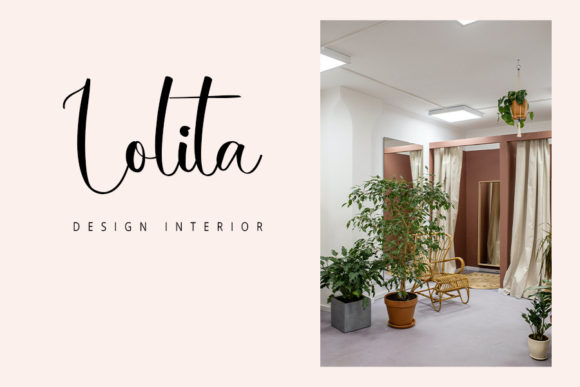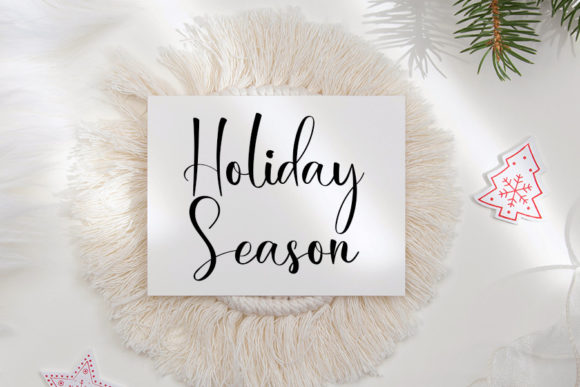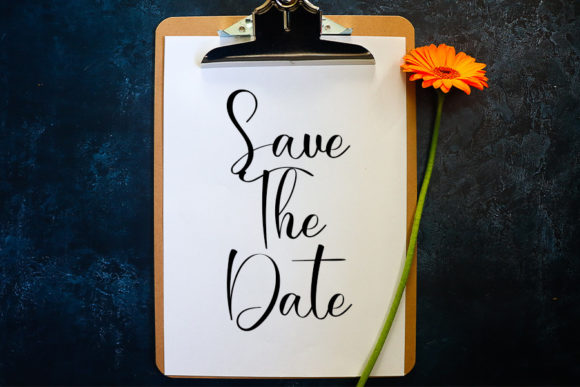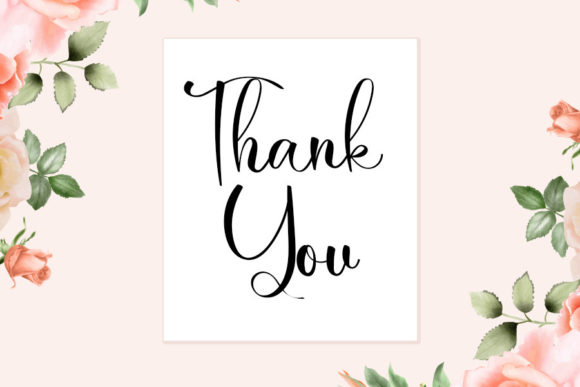
Introduction to Olive Birthday Font
As a designer, you’ve probably experienced that moment when a project just comes together – the perfect combination of colors, typography, and imagery. For me, it’s the thrill of adding a beautiful handwritten font to a design, watching it transform into a masterpiece. And that’s exactly what the Olive Birthday Font does – it brings a touch of elegance and whimsy to any creative project.
Whether you’re working on a branding project, crafting a social media post, or designing a logo, the Olive Birthday Font is an excellent choice. Its high-quality, free download makes it an accessible design resource for designers of all levels. With its transparent background, you can easily layer it over images or use it as a standalone element. The Olive Birthday Font is a timeless, versatile tool that will elevate your designs and leave a lasting impression.
Key Features of Olive Birthday Font
- High-quality design resource perfect for creative projects, including invitations, greeting cards, and party decorations.
- Unique, elegant, and playful font style suitable for a variety of occasions, including birthdays, weddings, and anniversaries.
- Designed to be highly legible and readable, making it an ideal choice for creative projects requiring clear typography.
Honest Review: Olive Birthday Font
I recently stumbled upon the Olive Birthday Font and was excited to try it out for my next design project. As a designer, I’m always on the lookout for high-quality resources that can elevate my work.
Here are some things that work well with this font:
- ✨ Clean and modern design aesthetic: The Olive Birthday Font has a crisp, modern feel that works perfectly for birthday invitations, party decorations, and other creative projects.
- ✨ Clear and easy-to-read characters: The font is well-designed with clear characters that are easy to read, even at small sizes.
- ✨ Transparent background: This is a huge plus for designers who need to use the font on a transparent background or with other design elements.
- ⚠️ Limited character set: The Olive Birthday Font only includes a limited set of characters, which may not be suitable for all design projects.
- ⚠️ Not ideal for large text: While the font looks great at small sizes, it may not be the best choice for large text due to its modern design aesthetic.
Tips for Getting the Most Out of Olive Birthday Font
Experiment with different font sizes and styles to create a visually appealing design. Use the transparent background to create a sense of depth and dimension in your design.
The Olive Birthday Font is ideal for birthday invitations, party decorations, and other creative projects that require a playful and festive touch. You can also use it for other occasions like weddings, anniversaries, and graduations.